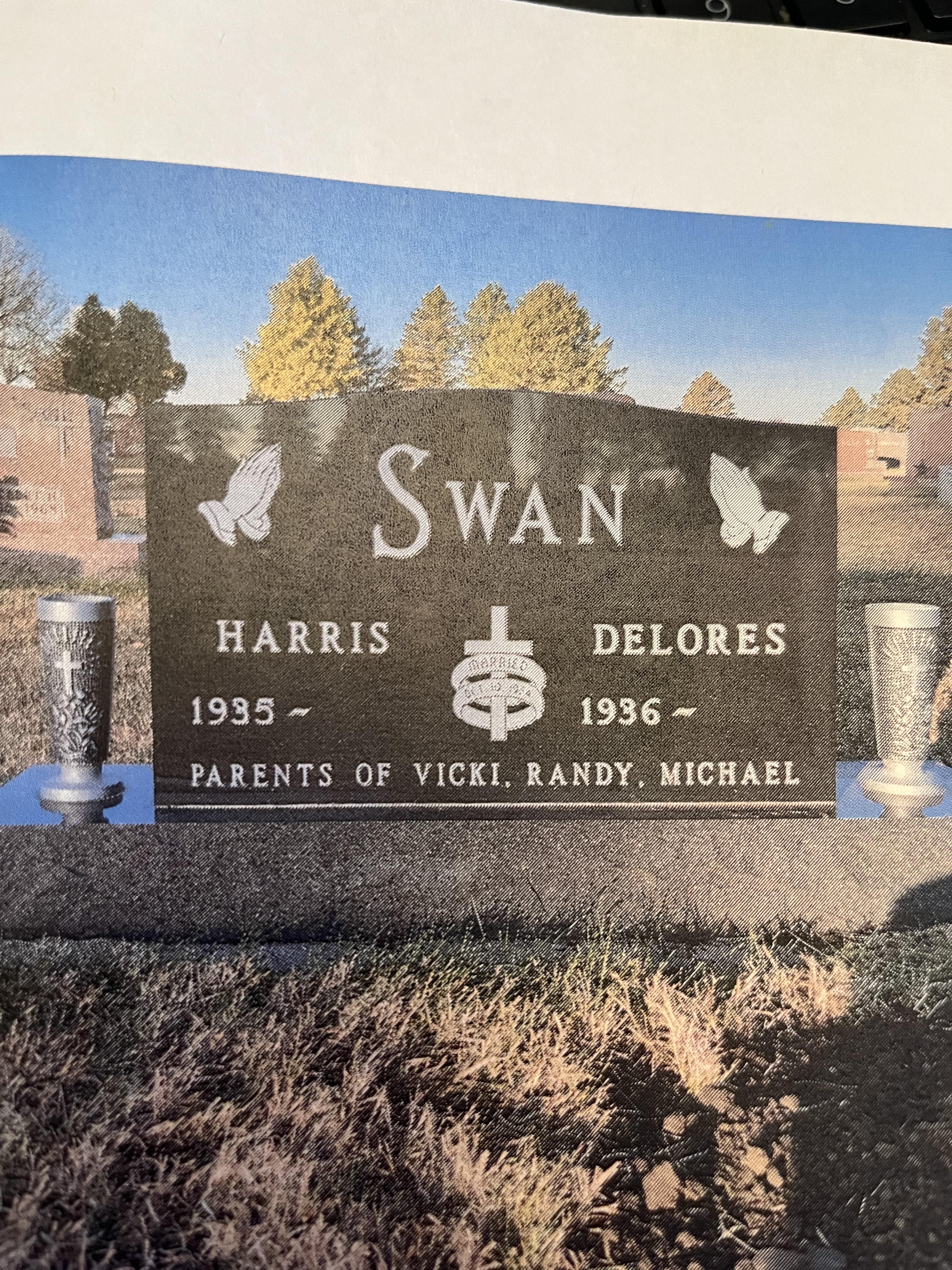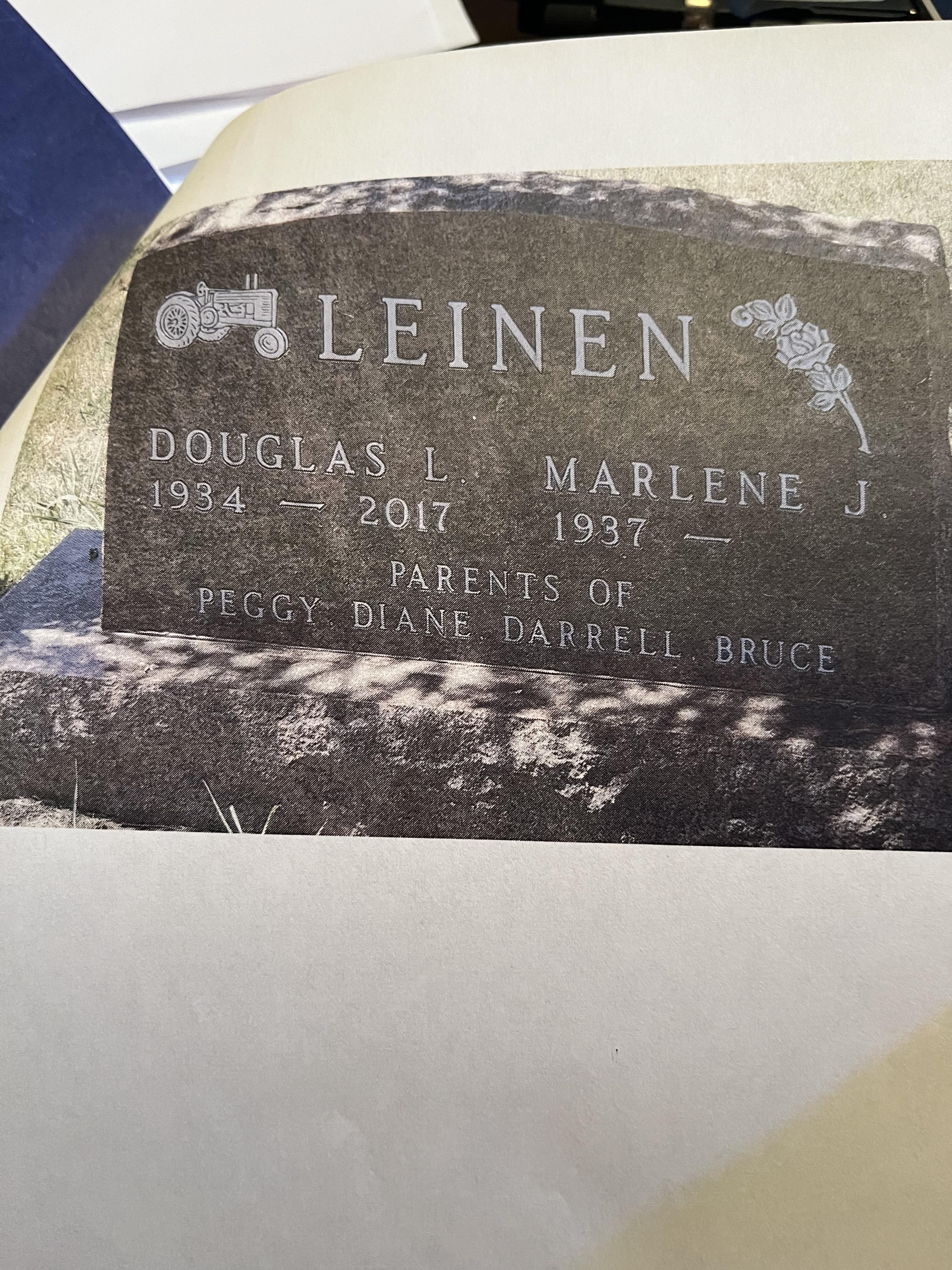
This looks like one of the Gerber Omega Modified Roman fonts that’s been outlined in the software.
It is also possibly a version of an outlined Modified Roman font in the SignLab software called “Polished”.